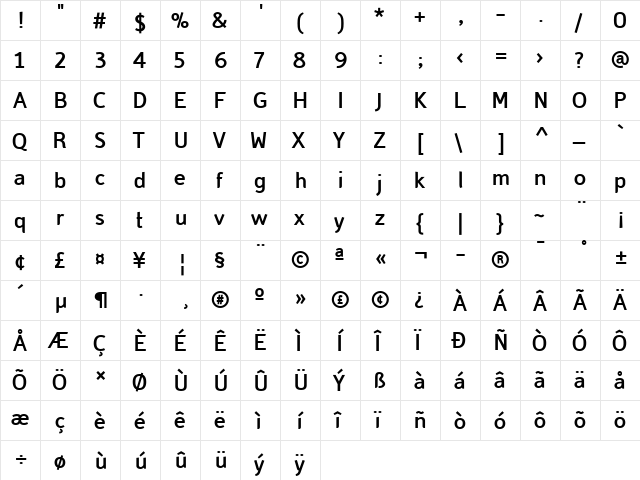
Domestos98 Bold
Design Context for Domestos98 Typeface
Domestos98 is a composed and adaptable typeface that performs quietly and consistently across a wide range of design contexts. Its bold stroke weight gives it real presence on the page.
Pro Tip: Pair Domestos98 with a font of contrasting weight or personality to build a more expressive typographic hierarchy.